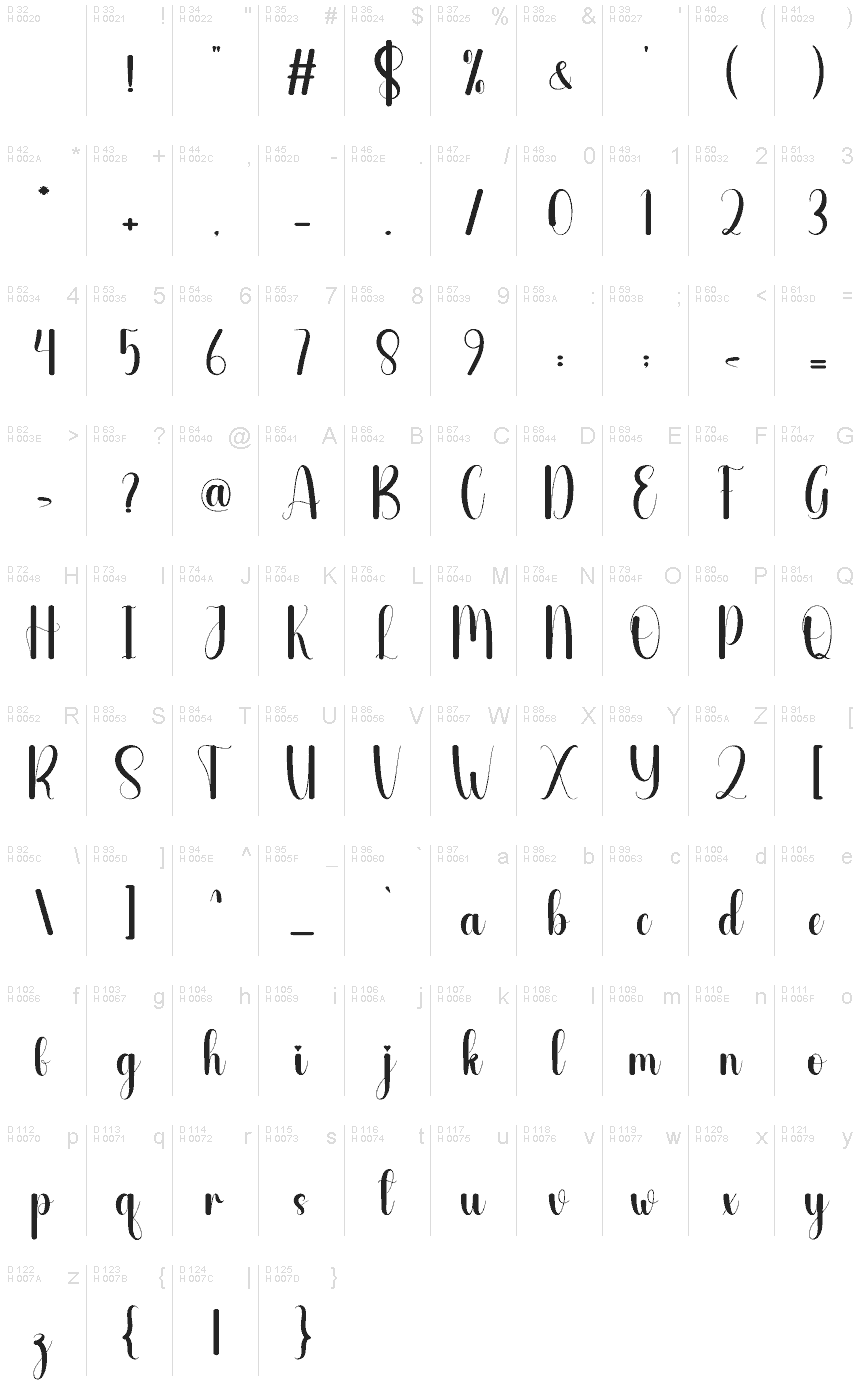
South Handmade
South Handmade font is a free calligraphy font by Andi Moz that embodies elegance and decorative style. Its vintage-inspired design features flowing, sophisticated lines with an artistic flair, making it the perfect choice for projects that demand attention and enchantment.
Use it to add a personal touch to book covers, invitations, greeting cards, branding designs, signage, poster designs, letterheads, business cards, website headers and images for social media platforms such as Facebook and Instagram.